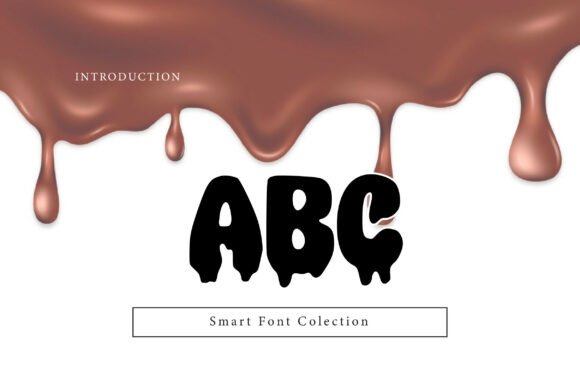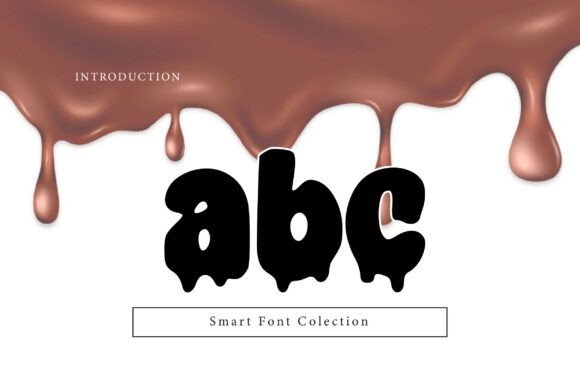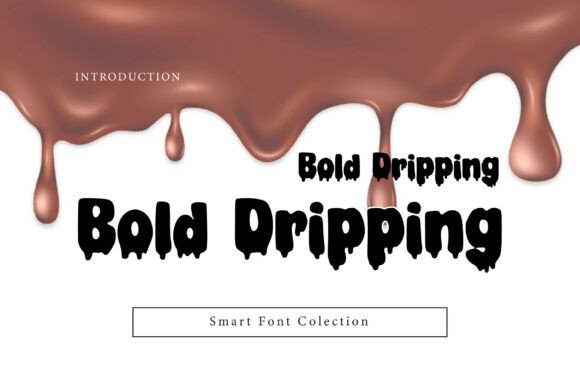
Unleash the Horror: Introducing Bold Dripping Font
Are you looking for a font that will make your designs stand out from the crowd? Do you want to add a touch of horror and edginess to your typography? Look no further than the Bold Dripping Font. This spooky and bold dripping display font is designed for horror, Halloween, and creepy-themed typography, making it the ultimate choice for designers who want to create a lasting impression.
The Unique Features of Bold Dripping Font
The Bold Dripping typeface boasts heavy, rounded letterforms that appear to be melting or dripping down the page. This unique feature gives the font a tactile quality that evokes the sensation of thick paint, melting chocolate, or even spooky slime, depending on your chosen color palette. The font’s melting appearance is sure to grab attention and leave a lasting impression on your audience.
Perfect for Edgy Designs
Bold Dripping Font is perfect for designers who want to create edgy and bold designs. The font works exceptionally well for street-wear brands, Halloween-themed designs, or artistic posters. Its unique and eye-catching design makes it ideal for album covers, skate deck graphics, and bold social media headlines where you need to stop the scroll.
Pairing Options for a High-Impact Look
To take your designs to the next level, pair the Bold Dripping font with stark, industrial textures or neon glow effects to create a futuristic “cyberpunk” or “underground” vibe. This will add an extra layer of edginess to your design and make it stand out from the crowd. You can also experiment with different color palettes to achieve the desired effect.
Readability and Versatility
Despite its melting appearance, the core structure of the Bold Dripping font is solid and highly readable. This ensures that your message isn’t lost in the effect, making it perfect for designs where you need to convey a clear message. The font is also highly versatile, allowing you to adjust the tracking and use it in a variety of design contexts.
Tips for Using Bold Dripping Font
Here are some tips for using Bold Dripping Font in your designs:
- Experiment with different color palettes to achieve the desired effect.
- Pair the font with stark, industrial textures or neon glow effects for a high-impact look.
- Adjust the tracking to create a unique and eye-catching design.
- Use the font for album covers, skate deck graphics, and bold social media headlines.
- Don’t be afraid to get creative and try out new and innovative design ideas.
In conclusion, Bold Dripping Font is a unique and eye-catching font that is perfect for designers who want to add a touch of horror and edginess to their typography. Its bold and dripping design makes it ideal for street-wear brands, Halloween-themed designs, or artistic posters. With its high readability and versatility, Bold Dripping Font is sure to become a staple in your design toolkit.
Get Creative with Bold Dripping Font